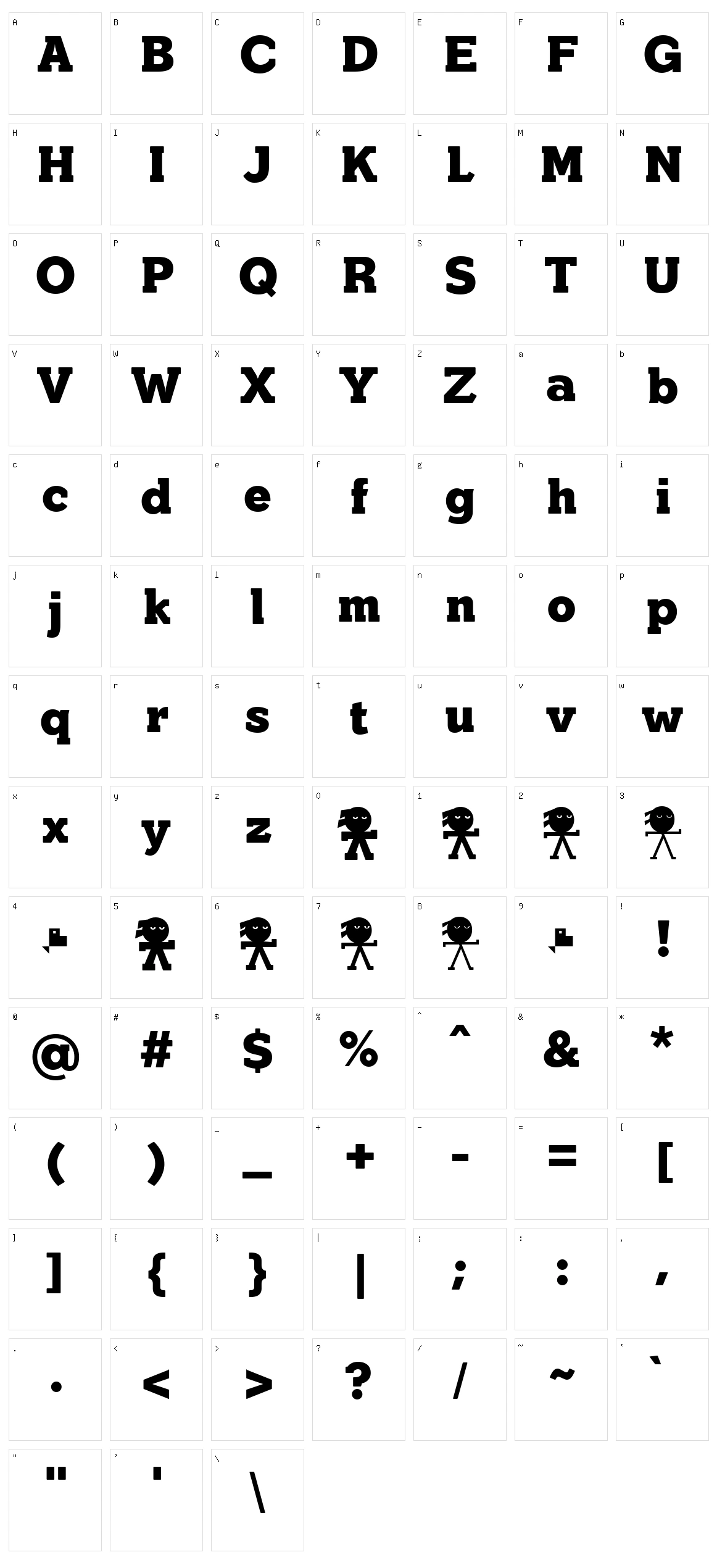
The free font Yonky Black is carefully designed by deFharo, showcasing a thoughtful balance of creativity and usability and falls under the Serif font style. When you download the ZIP file, it contains only 739.96 KB of font files, making it lightweight and quick to download. Please review the license details below to understand permitted usage and distribution rights. If license information is not available, we recommend using this font for personal projects only or contacting the author directly for commercial usage permissions.